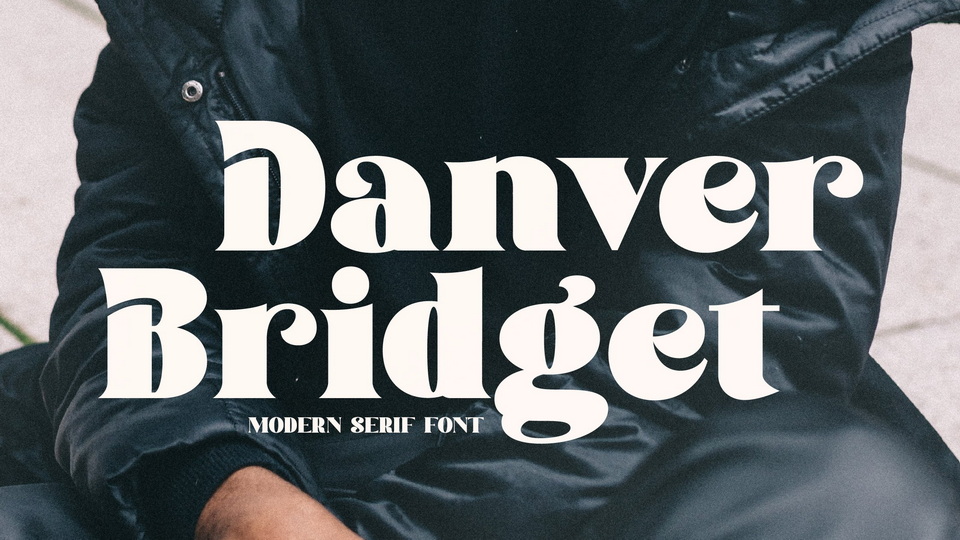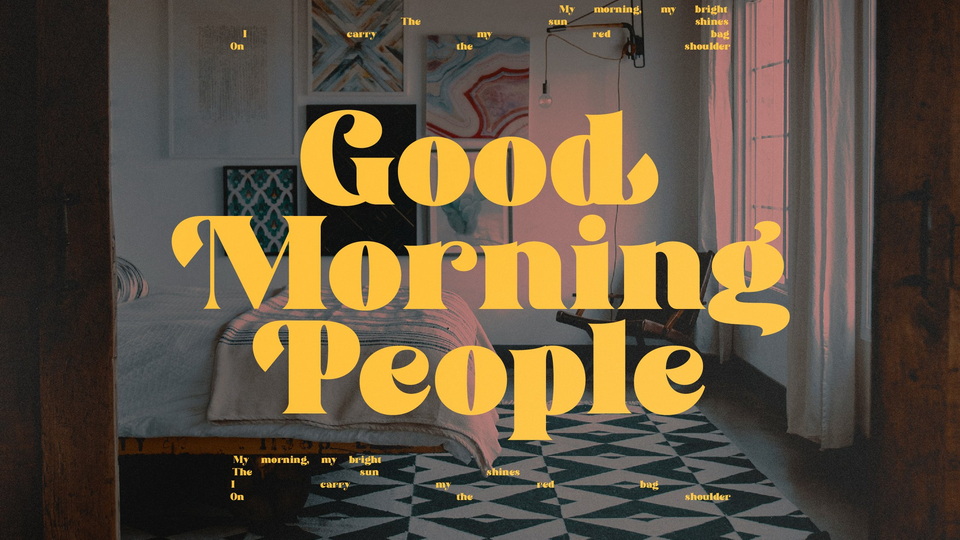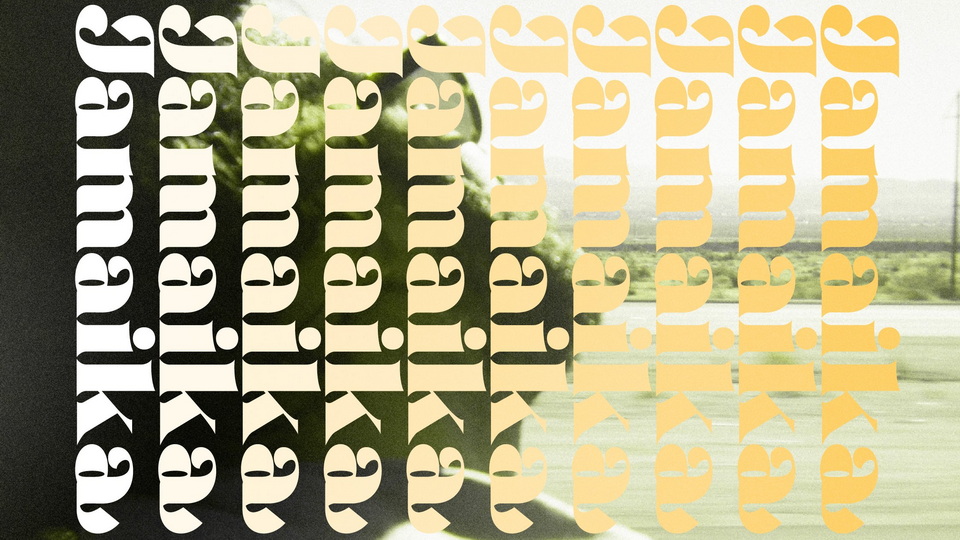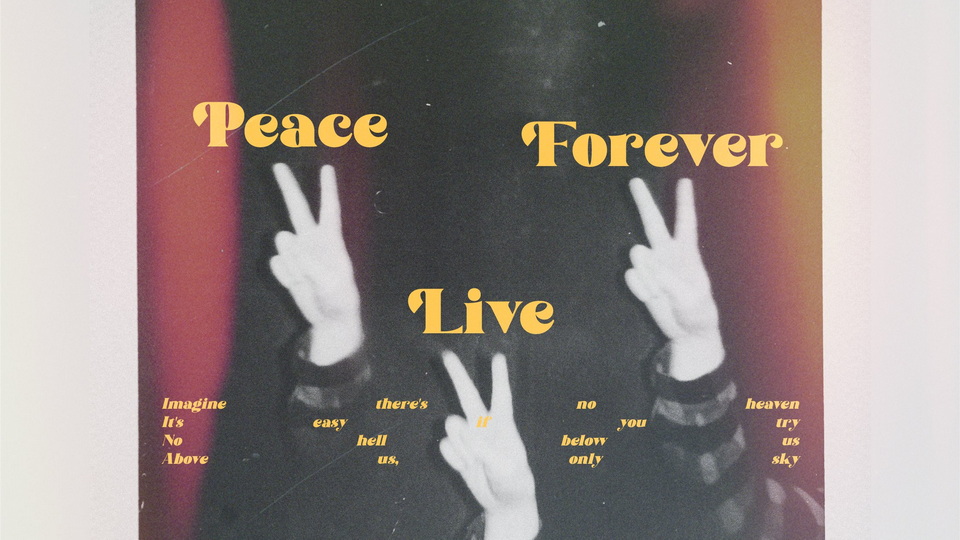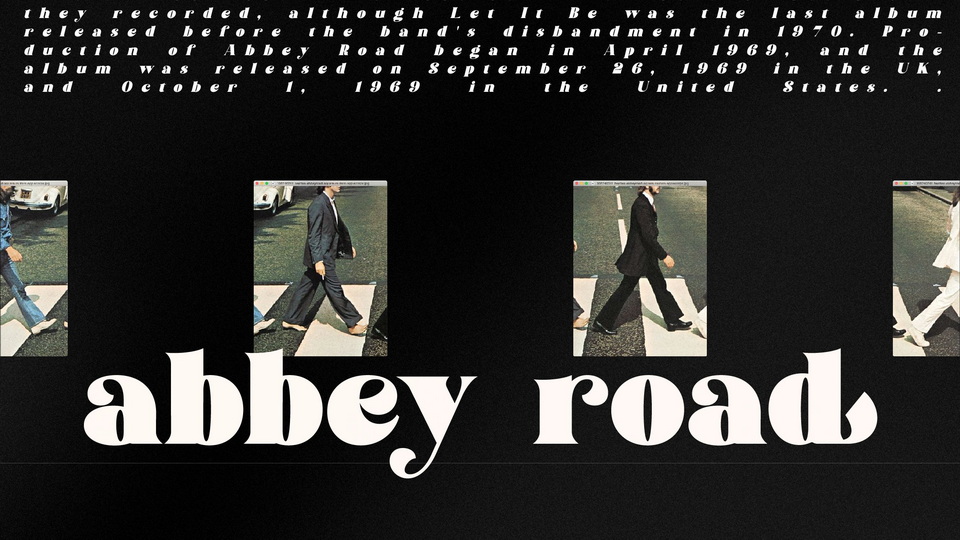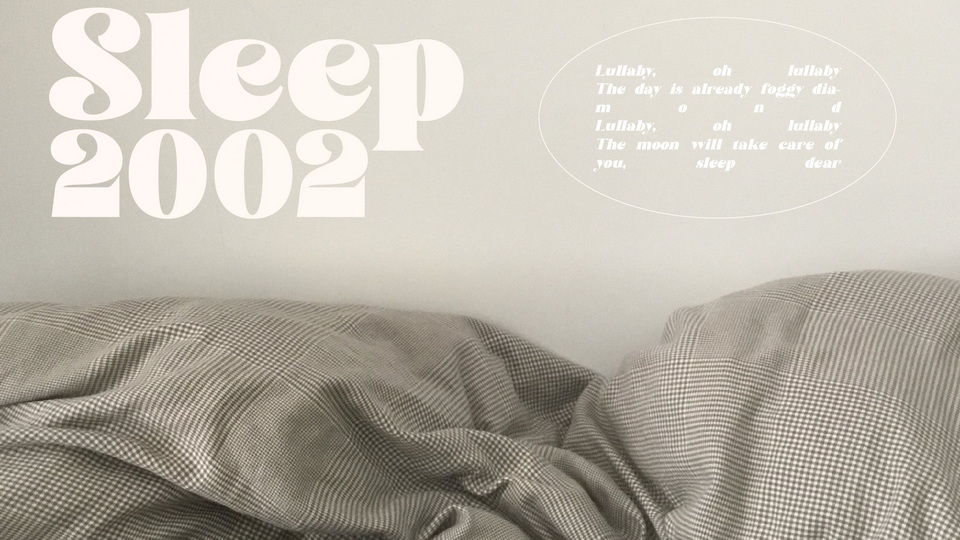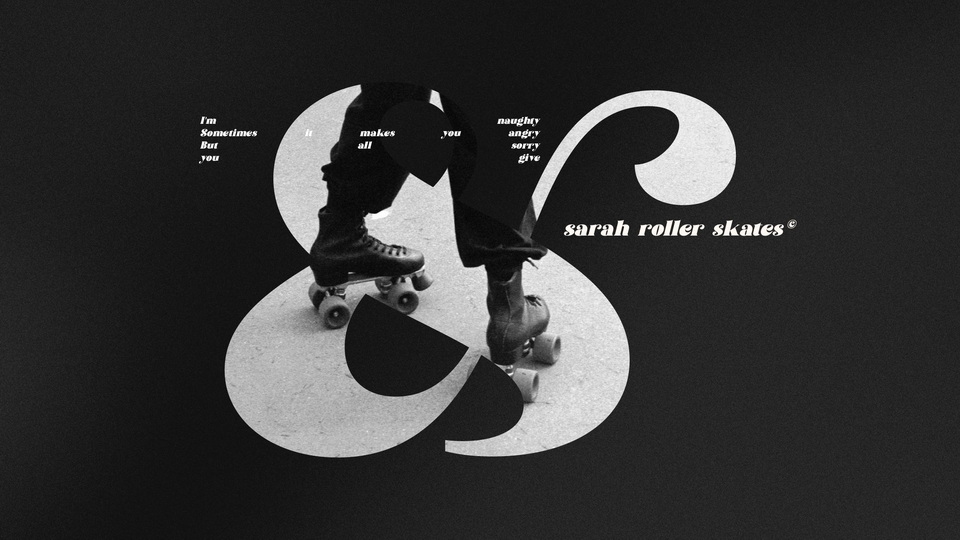
Danver Bridget is a bold serif typeface that has own unique style and modern look. This font is perfect for an impact logo, book or movie title design, fashion brand, magazine, clothes, lettering, quotes, and so much more.